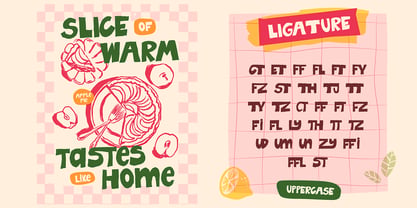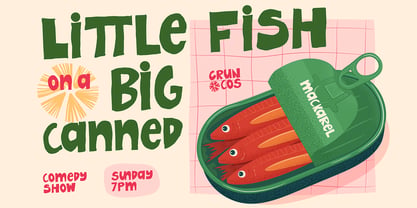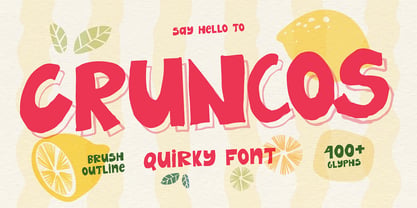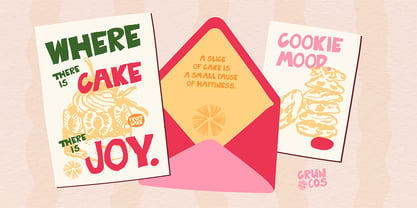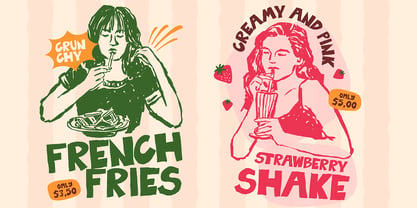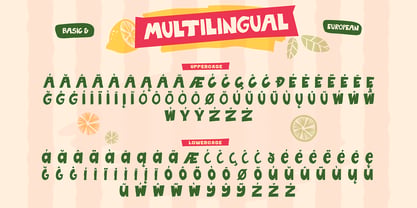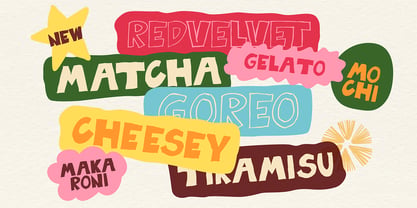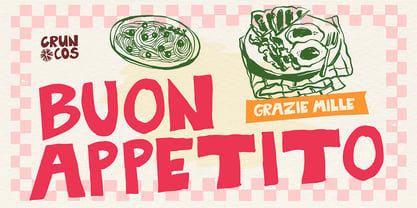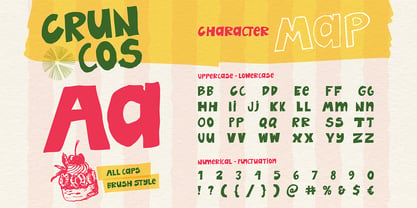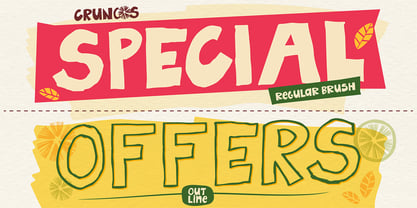
Cruncos
Die Schriftfamilie Cruncos wurde von Meidy Meichico entworfen und von Artisan Themes veröffentlicht. Cruncos enthält 2 Stile und Familienpaketoptionen. Mehr über diese Familie
Cruncos is a playful and bold brush font with a fun, hand-drawn feel. Designed in all caps, this font comes with solid brush style and outline style, giving you more flexibility to mix and match in your designs. Inspired by food packaging, café menus, posters, and cheerful branding, Cruncos delivers a quirky, crunchy, and friendly vibe that instantly grabs attention. Its slightly rough edges and organic strokes make your text feel warm, expressive, and full of personality. Features: A - Z set (Uppercase & Lowercase All Caps), Number, Punctuation, Alternates, Ligatures, Multilingual